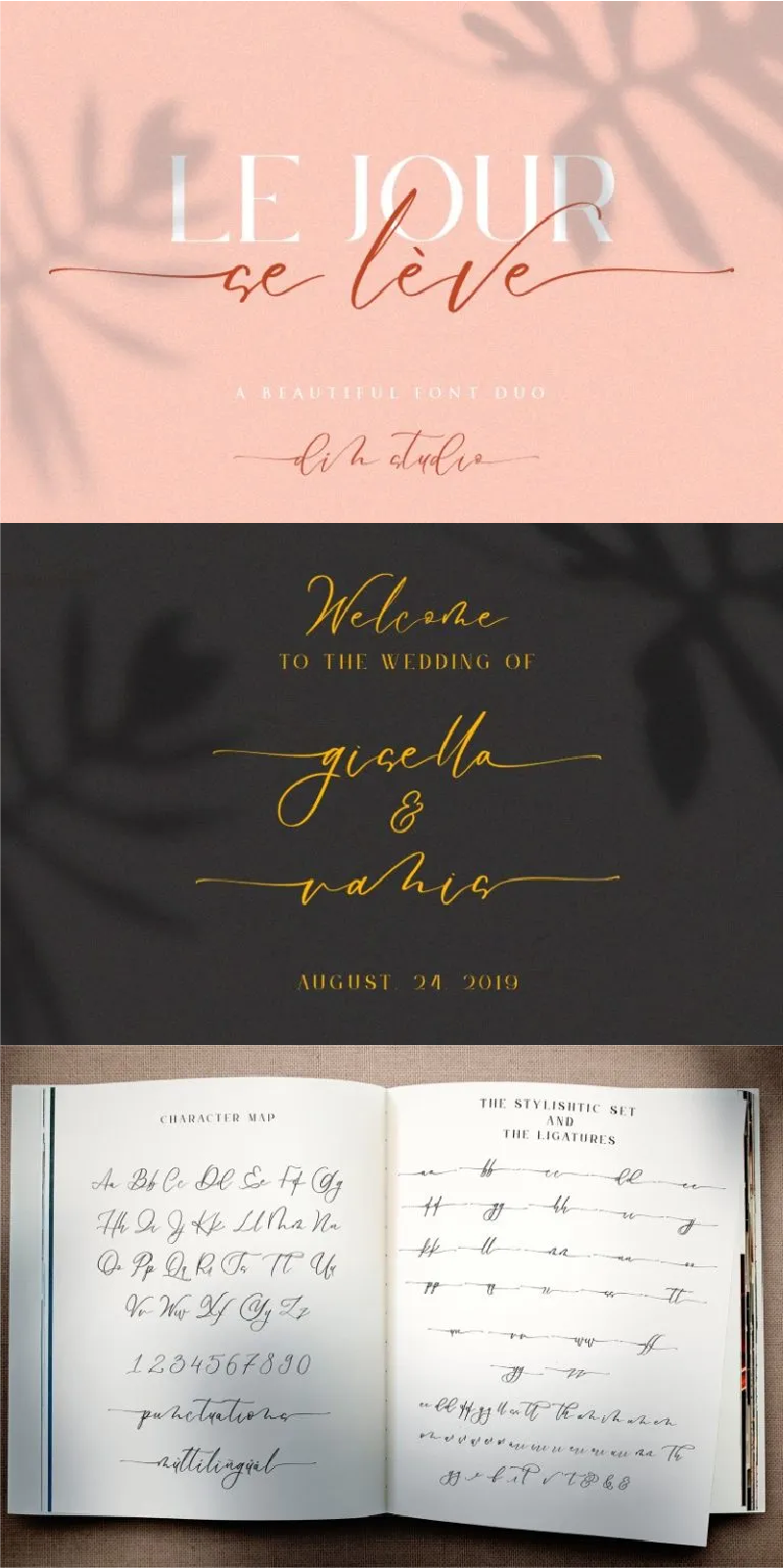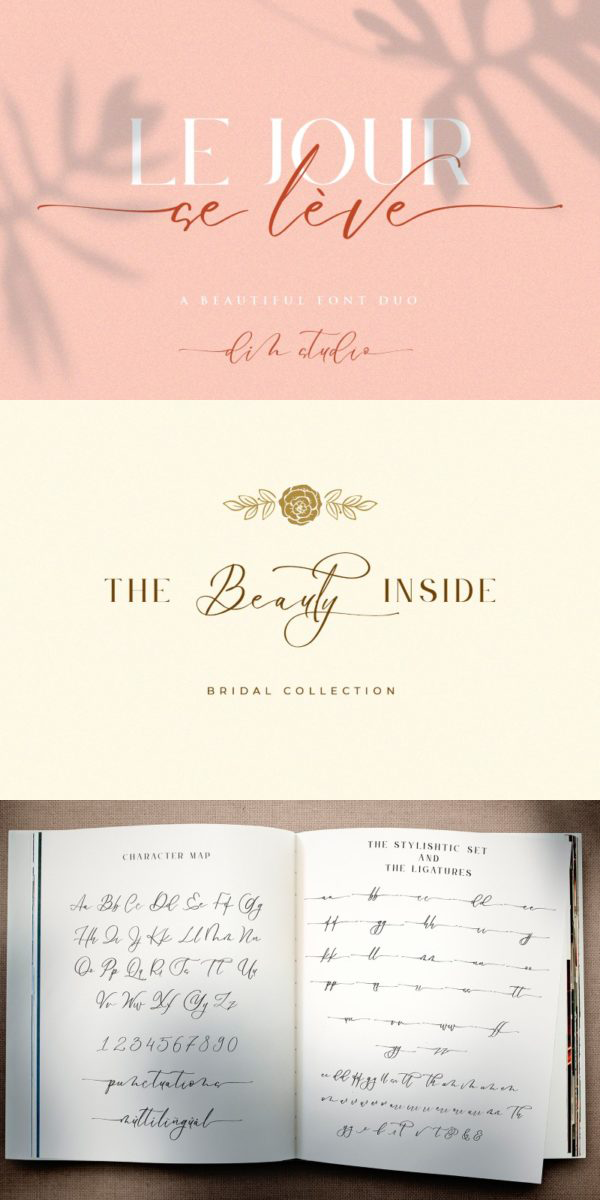
Le Jour Font
About Le Jour
Le Jour is a beautiful combination of calligraphy and modern serif. It is naturally handwritten. The combination of the fonts will make your designs more beautiful and luxurious. This font is suitable for any design like wedding invitations, social media campaigns, ads, brandings, quotes, merchandise, etc. With the combination of elegant and casual styles, this font contains a full set of lowercase and uppercase letters, numerals, punctuations, and alternates.
-Le Jour Serif Font
-Le Jour Script Font
-58 Alternates
-52 Stylish sets
-Numerals and Punctuations (OpenType Standard)